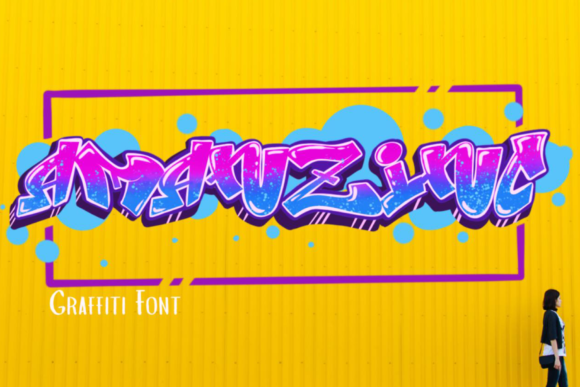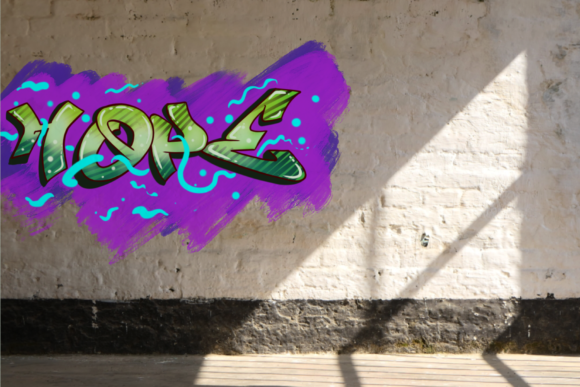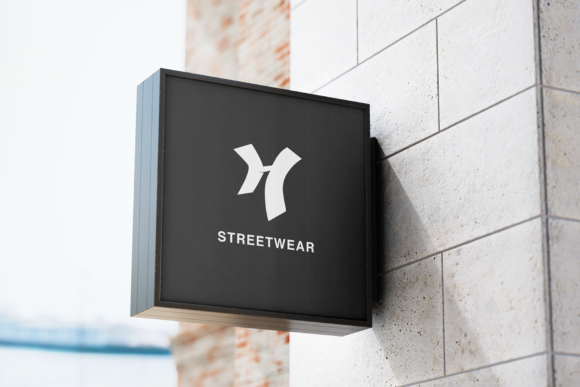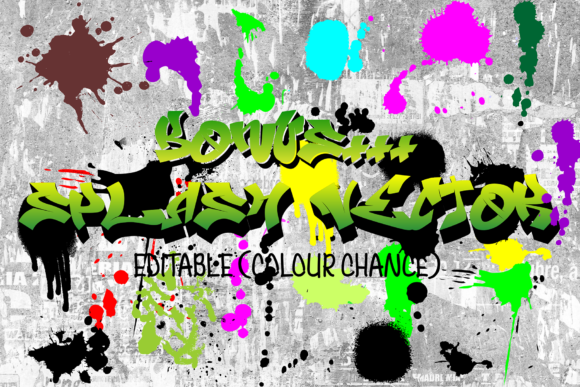
Amanzinc Graffiti Font
Amanzinc Graffiti is an awesome display font that features the street art vibe. Take your designs to the next level with this stunning font!